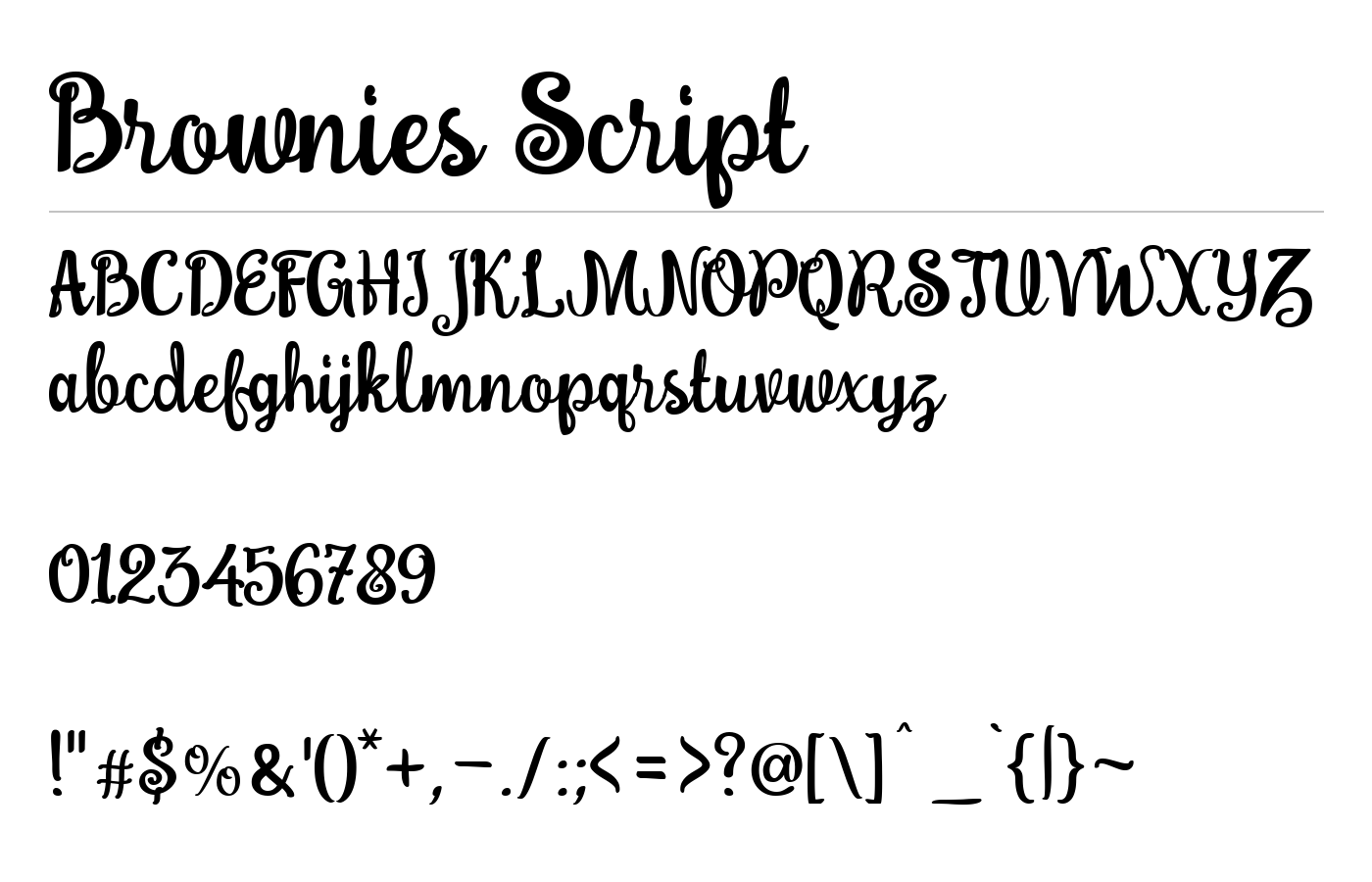
Brownies Script is a playful and charming script font with a bold, hand-drawn style that combines lively curves and quirky letterforms. Its medium weight and moderate contrast give it a friendly, approachable feel, making it perfect for creative logos, invitations, and packaging that seek a personal, whimsical touch. This font works well in both headlines and decorative text where a unique, casual elegance is desired.
Brownies Script Font
About Brownies Script Font